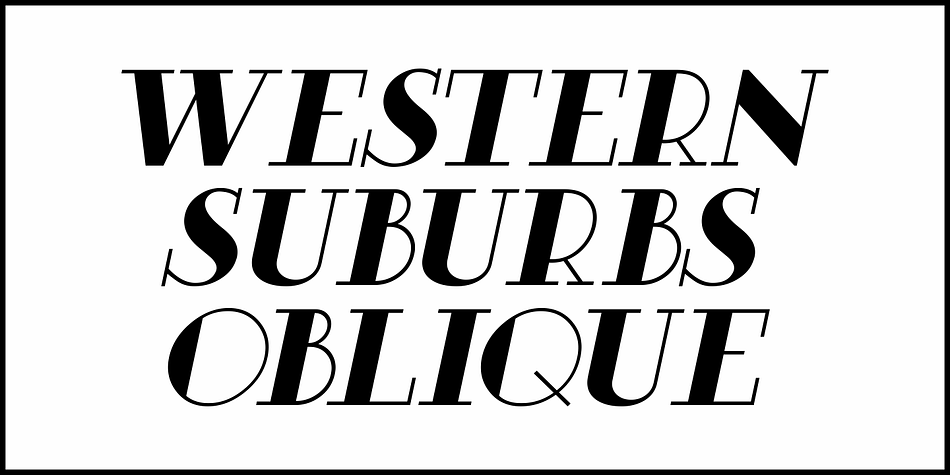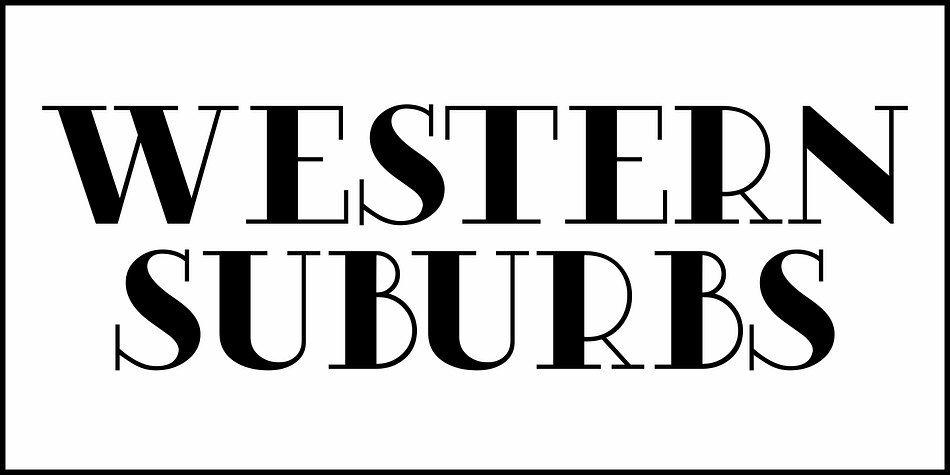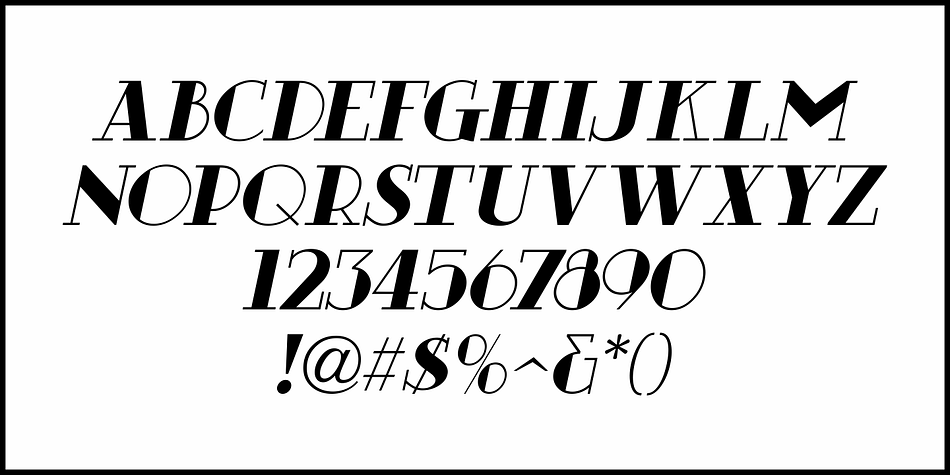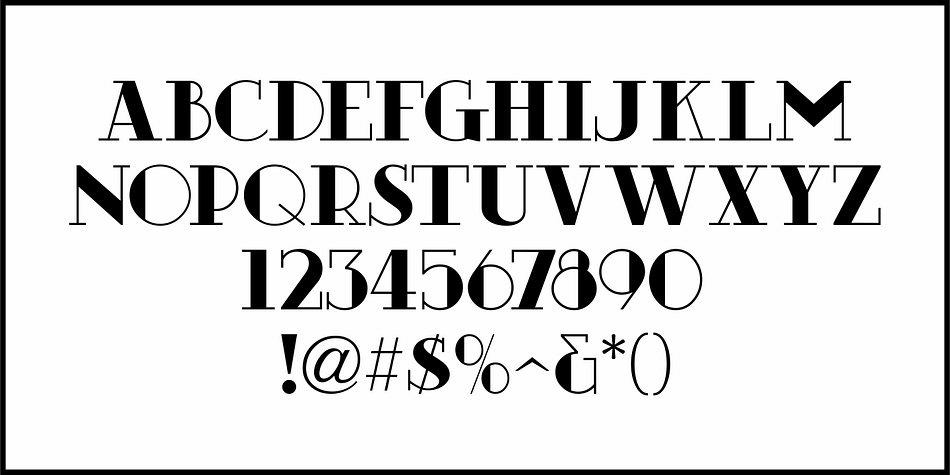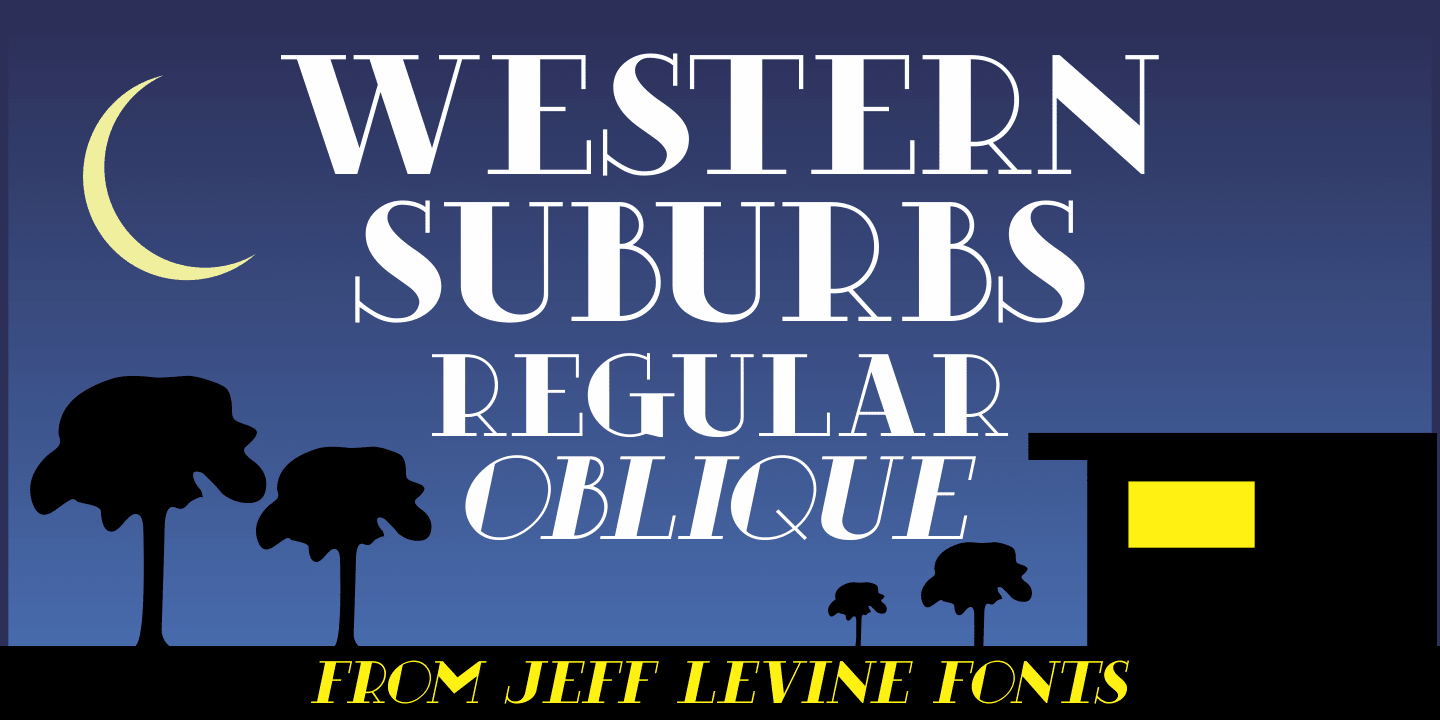
WESTERN SUBURBS JNL
Designed by Jeff Levine, Western Suburbs JNL is an art deco font family. This typeface has two styles and was published by Jeff Levine Fonts.
The cover of a 1932 edition of “Sunset magazine” (a publication for homeowners living in the west and southwest area of the United States) featured a lovely Art Deco serif alphabet that is now available as Western Suburbs JNL in both regular and oblique versions.